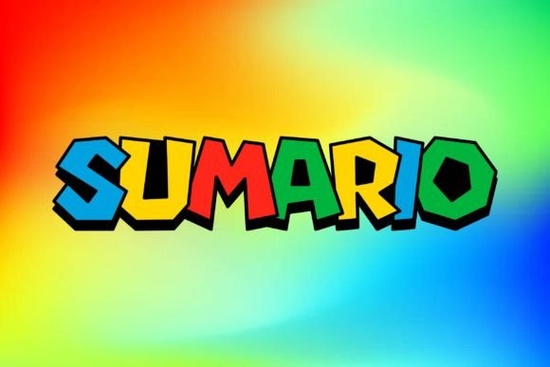
Looking for a decorative typeface that feels bold, playful, and unmistakably creative? Sumario Font brings together Gothic-inspired design with a cartoon-like energy that works across movie titles, game graphics, T-shirt artwork, and more. With 96 carefully designed glyphs and 95 characters, it gives designers and creators plenty to work with without feeling overwhelming.
What Makes Sumario Font Stand Out From Other Decorative Fonts?
Plenty of decorative fonts look flashy at first glance but fall apart in real projects. Sumario takes a different approach. Its Gothic-crafted letterforms carry a weight and structure that feel intentional, while the cartoon quality adds personality without crossing into childish territory. That balance makes it surprisingly versatile.
Each of the 96 glyphs has been carefully shaped, so the font holds up well whether you're setting a headline at large sizes or using it for short display text. The character set covers the essentials letters, numbers, and common punctuation so you can work on most projects without hitting missing-character walls.
Who Is This Font Best Suited For?
Sumario works well for a range of creative professionals and hobbyists. Here's a quick breakdown:
- Print-on-demand sellers It's a strong pick for T-shirt designs, poster prints, and sticker sets where bold display text grabs attention on a thumbnail.
- Game and entertainment designers The cartoon-meets-Gothic vibe fits game title screens, app icons, and promotional banners.
- Small business owners If you need eye-catching headers for menus, event flyers, or social media graphics, Sumario delivers character without looking generic.
- Crafters and hobbyists Great for scrapbooking, party invitations, and DIY projects where you want something more expressive than a standard sans-serif.
What Projects Does Sumario Work Well For?
Because of its stylish decorative nature, Sumario really shines in display-focused projects. Think about where type needs to make an immediate visual impact:
- Movie and entertainment titles The Gothic edge gives film posters, YouTube thumbnails, and streaming graphics a dramatic, attention-grabbing look.
- Cartoon and game branding Sumario's playful energy pairs naturally with animated content, indie game logos, and character-based merchandise.
- Apparel and merchandise On T-shirts, hoodies, and tote bags, bold decorative type like this stands out in marketplace listings and at craft fairs.
- Social media and marketing Instagram posts, Facebook ads, and Pinterest pins all benefit from distinctive display fonts that stop the scroll.
How Does Sumario Compare to Other Decorative Fonts?
If you've browsed decorative fonts before, you know the range is wide. Some lean heavily into horror or grunge aesthetics, while others go full cartoon. Sumario sits in a unique middle ground.
For creators who also like Latin-inspired or culturally rich typefaces, the Mexican Vibes decorative font offers a completely different flavor with vibrant, festive energy. Sumario, on the other hand, brings a Western Gothic foundation softened by cartoon charm making it a better fit when you want something bold but not tied to a specific cultural theme.
Does the Character Set Cover What I Need?
With 95 characters and 96 glyphs, Sumario covers standard Latin letters, numerals, and essential punctuation. For most display and headline work, this is more than enough. However, if your project requires extended language support or special symbols, you may want to pair it with a complementary typeface for body text.
A practical approach: use Sumario for headlines and short phrases, then set longer copy in a clean, readable sans-serif. This keeps your designs balanced and ensures readability while preserving the font's visual impact where it matters most.
Tips for Getting the Best Results With Sumario
- Use it at larger sizes. Decorative fonts like this are built for display, not body text. Bigger is almost always better.
- Give it breathing room. Generous letter-spacing and line-height help the Gothic details read clearly.
- Test on your target medium. What looks great on screen might need contrast adjustments for print, especially on dark T-shirt fabric.
- Pair it wisely. Match Sumario with a simple sans-serif or clean serif for any supporting text.
Quick Checklist Before You Start Your Next Project